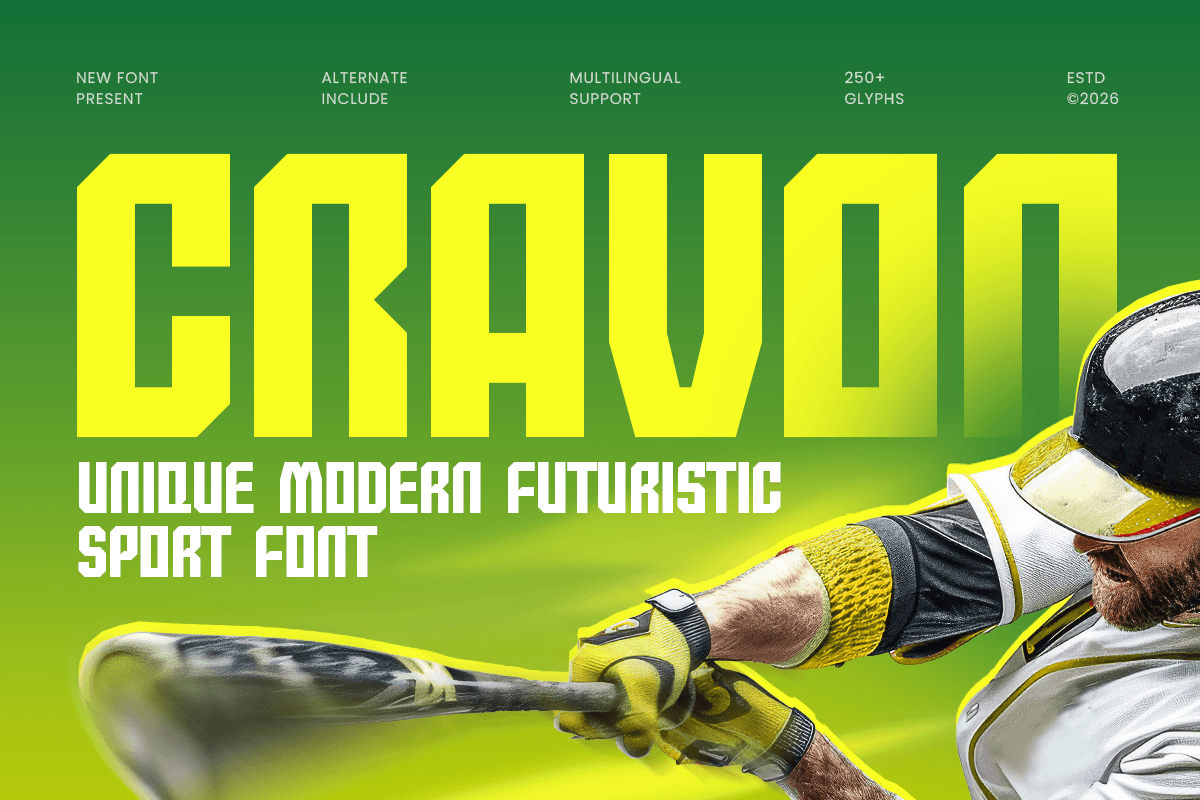
Cravon
-Modern Futuristic Sport Font
Cravon - Modern Futuristic Sport Font
CRAVON is a unique modern futuristic sport font designed to deliver speed, strength, and high-performance energy in every letter. With bold athletic forms, sharp futuristic details, and a clean modern rhythm, this typeface creates a powerful visual tone that feels dynamic, competitive, and instantly attention-grabbing.
Built for sport branding and digital-first visuals, CRAVON works beautifully across logos, wordmarks, esports identities, racing graphics, tournament posters, fitness campaigns, website headers, social media graphics, event banners, and promotional layouts. Its futuristic sport style keeps every headline bold and readable while adding a sleek tech-driven edge across both print and digital design.
Whether you’re creating a racing brand, launching an esports team identity, designing modern sport posters, or building high-energy fitness promotions, CRAVON provides a strong typographic foundation that makes your visuals feel fast, bold, futuristic, and unforgettable.
Inspiration Behind CRAVON
CRAVON is inspired by modern sport branding, futuristic tech graphics, and racing-style headline typography—where speed, sharp geometry, and competitive rhythm define the visual language. The design focuses on bold movement, digital clarity, and athletic impact to support sport logos, esports visuals, and performance-driven campaigns with a sleek modern edge.
CRAVON Font Features:
• Unique futuristic sport letterforms with bold athletic character
• Perfect for logos, esports branding, racing graphics, and headlines
• Sharp modern structure for fast, dynamic visual impact
• Strong readability for posters, banners, and digital campaigns
• Sport logos, team branding, and athletic identity systems
• Racing posters, esports graphics, and tournament visuals
• Fitness campaigns, performance branding, and bold promotions
• Website headers, social media graphics, and digital ads
• Event banners, competitive headlines, and modern tech-sport layouts